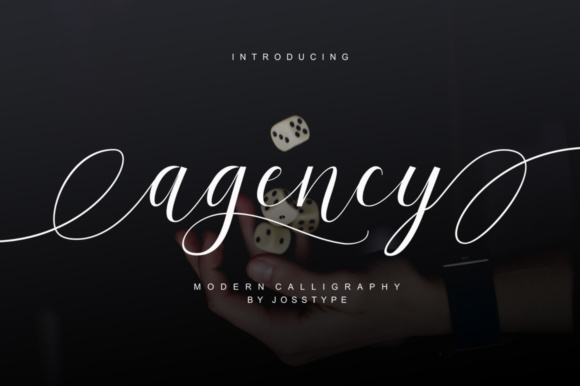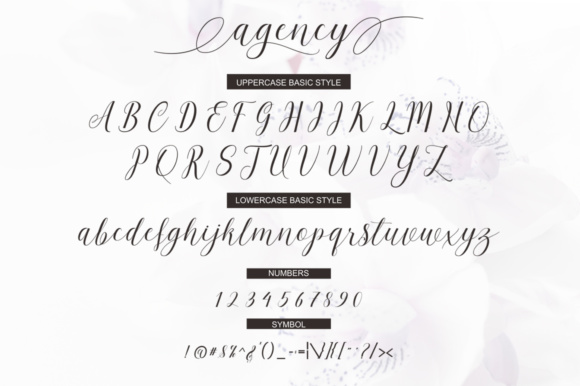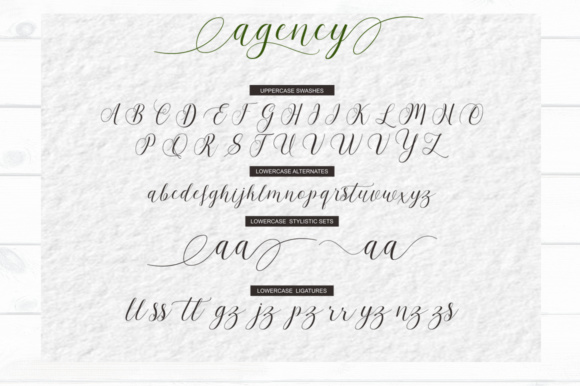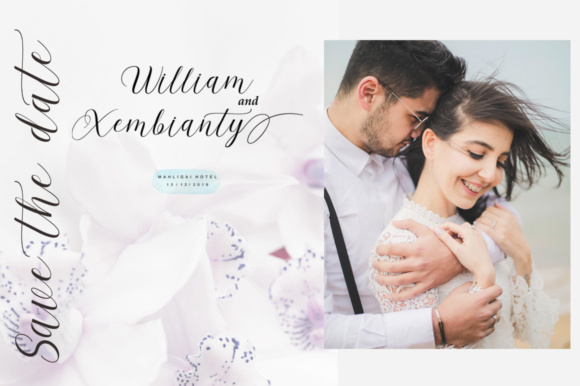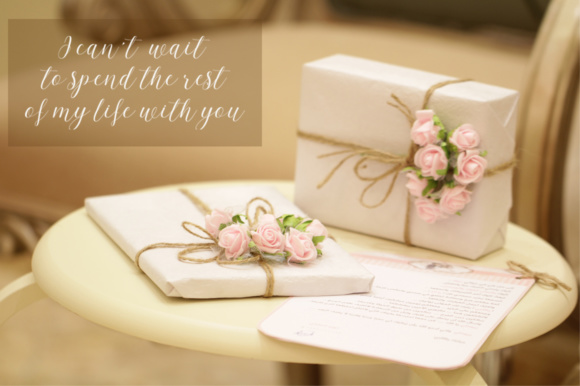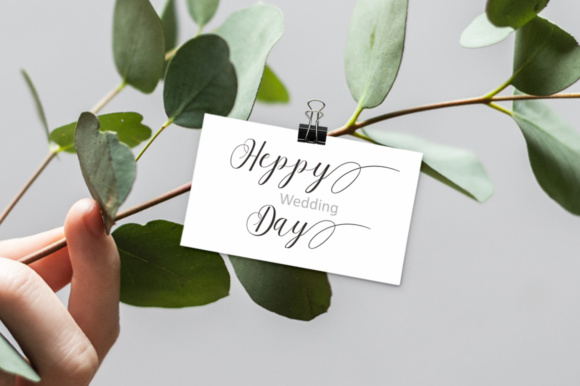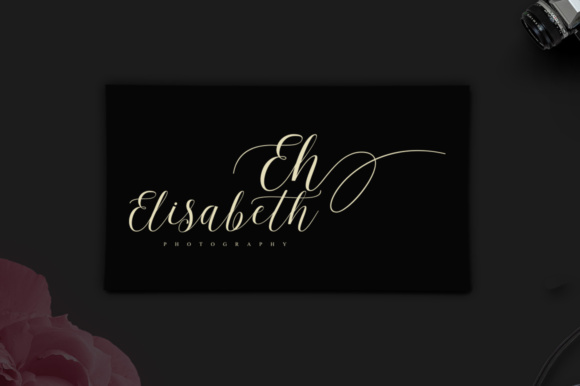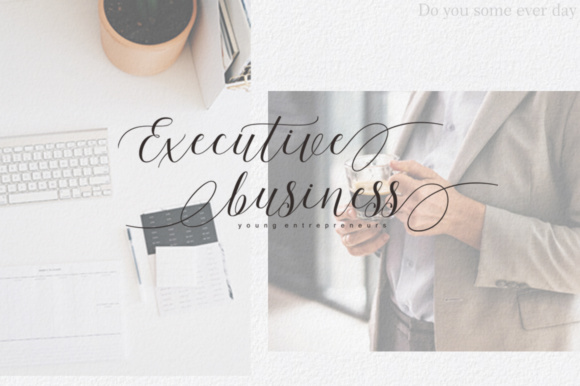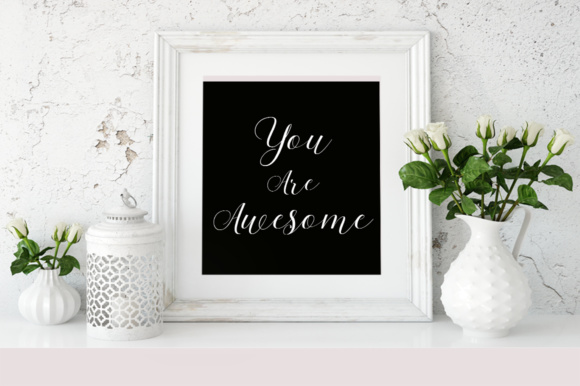
Agency Script Font
About Agency Script Font
The Agency Script is a handwritten typeface with classical roots.
It’s formal & elegant, and is suitable for a large range of different projects.